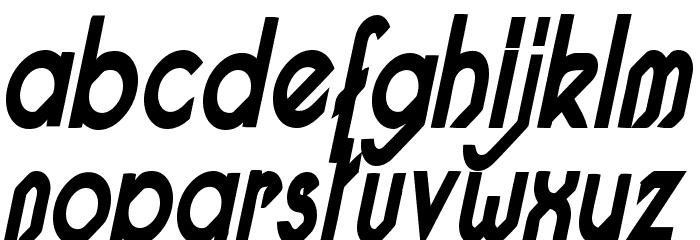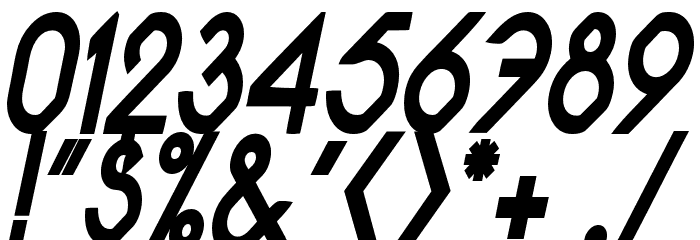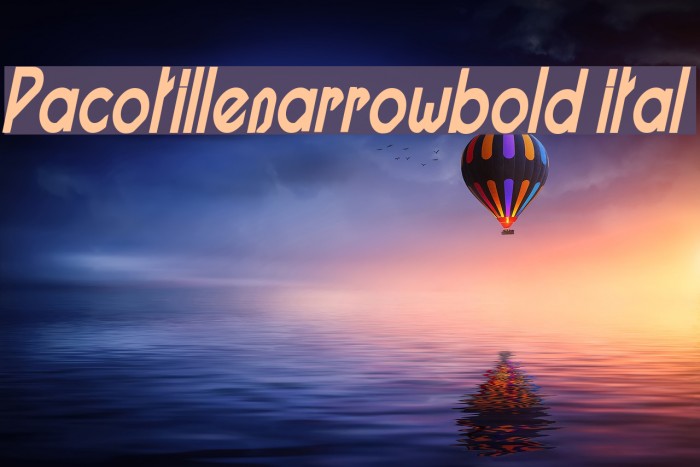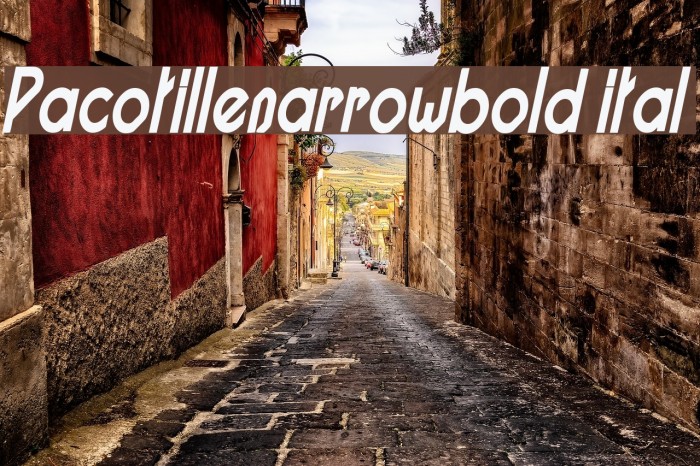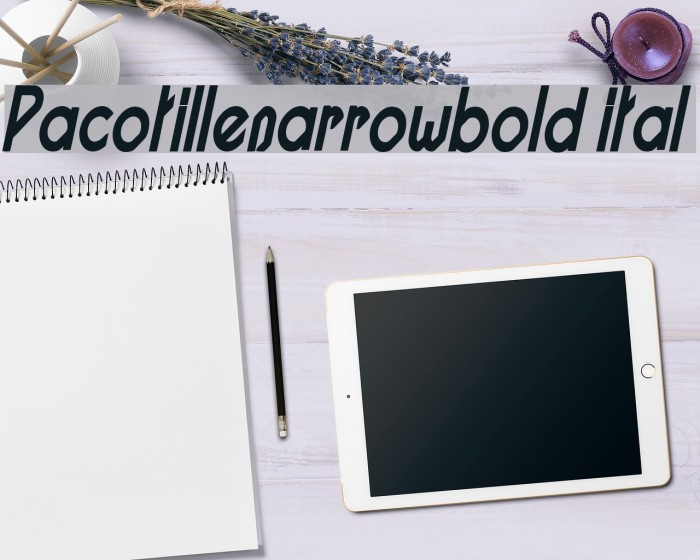
Pacotillenarrowbold ital Font
This font features a bold and italicized style with a distinctive slant, giving it a dynamic and energetic appearance. The characters are narrow, enhancing the compactness of the text while maintaining readability. The strokes are thick and consistent, contributing to a strong visual impact. The uppercase and lowercase letters share a cohesive design, with angular and sharp edges that add a modern flair. The numerals and special characters are designed to match the overall aesthetic, ensuring uniformity across all elements. This font's unique style makes it suitable for projects that require a bold statement.
A bold, italicized, and narrow font with a dynamic and modern style.
- Proposed Projects: Ideal for branding, posters, headlines, and any design requiring a bold and modern touch.
- Category: Sans-Serif
- Character Spacing: Tight